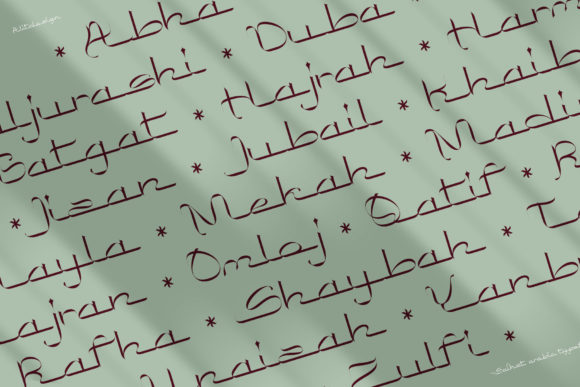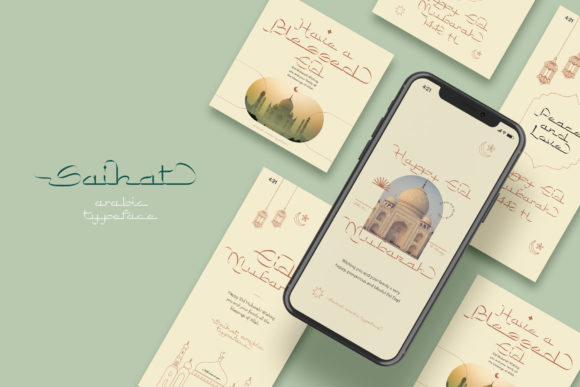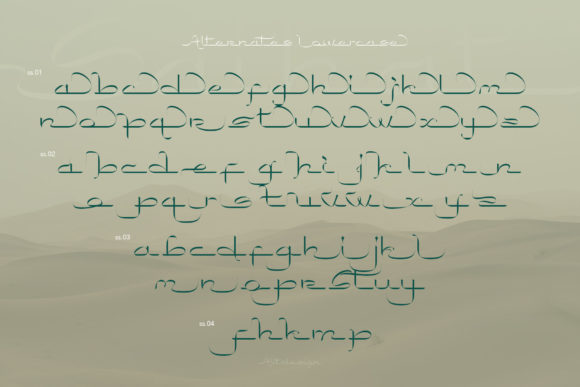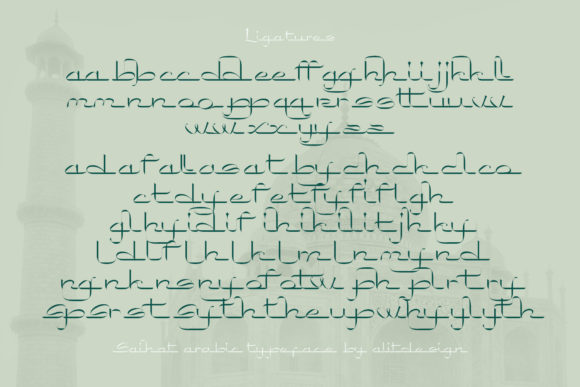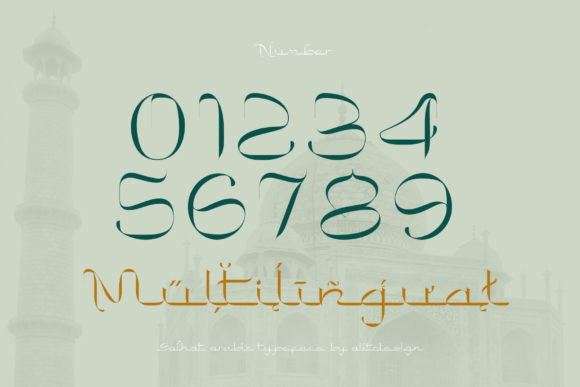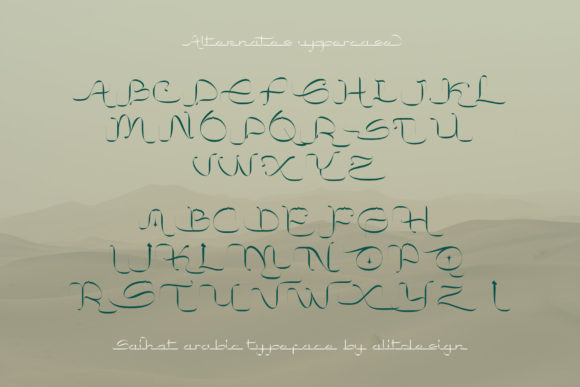
Introduction to Saihat Font
Have you ever been in the midst of a creative project, pouring your heart and soul into a design, only to feel like something is missing? The perfect font can make all the difference, elevating your work from good to great. That’s where the Saihat Font comes in – a cool, distinct, and Arabic-styled display font that’s about to become your new best friend.
As a valuable addition to your design resource library, the Saihat Font has the potential to take your creations to the next level. With its PUA encoded features, you’ll have access to all the glyphs and swashes you need to bring your vision to life. Whether you’re working on a project that requires a transparent background or simply want to add some flair to your designs, the Saihat Font is the perfect choice.
Key Features of Saihat Font
- High-quality design resource ideal for creative projects, offering a unique and elegant style.
- Transparent background option allows for seamless integration into various design elements.
- Unique characteristics include intricate details and ornate designs, perfect for adding a touch of sophistication to any creative project.
Honest Review: Saihat Font
As a designer, I’m always on the lookout for high-quality design resources to elevate my creative projects. Recently, I stumbled upon the Saihat Font, and I’m excited to share my honest review with you.
The Saihat Font is a beautiful, modern script font that’s perfect for adding a touch of elegance to your designs. Its high-quality design makes it a great addition to any project. ✨
Here are some of the features that I love about the Saihat Font:
- Transparent background, making it easy to use with any design
- Limited character set, which may not be ideal for longer texts
- No bold or italic versions available, which may limit its use in certain contexts
Overall, I’m impressed with the Saihat Font, and I would definitely recommend it to designers looking for a high-quality script font. While it may have some limitations, its beauty and elegance make it a great addition to any design project. ⚠️
To get the most out of the Saihat Font, experiment with different font sizes, colors, and combinations. You can also use the font with other design elements, such as graphics and images, to create a visually appealing design. By using the Saihat Font in your creative project, you can add a touch of elegance and sophistication to your design.